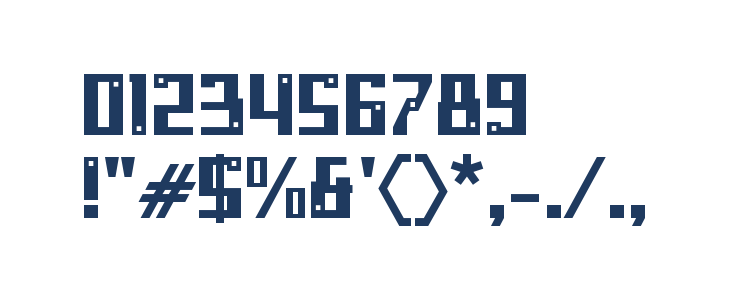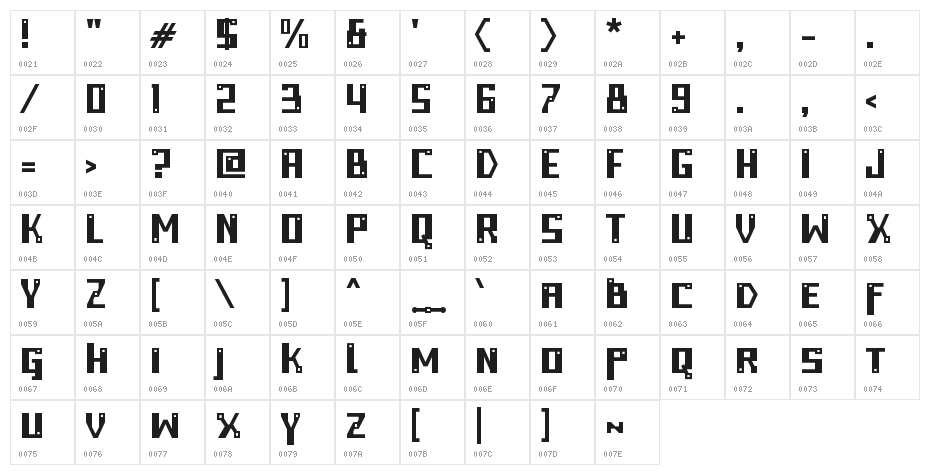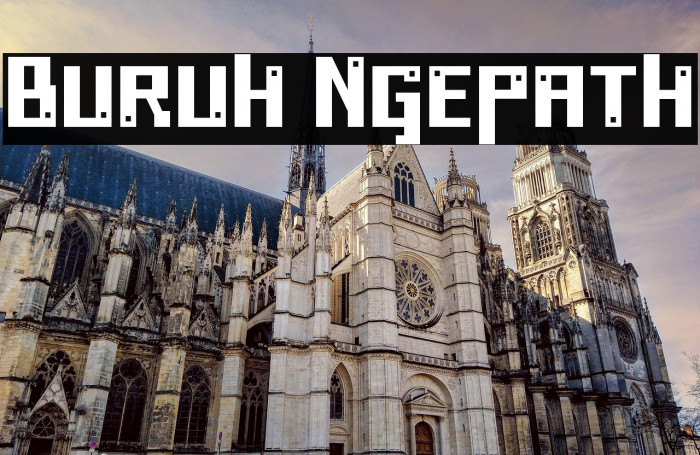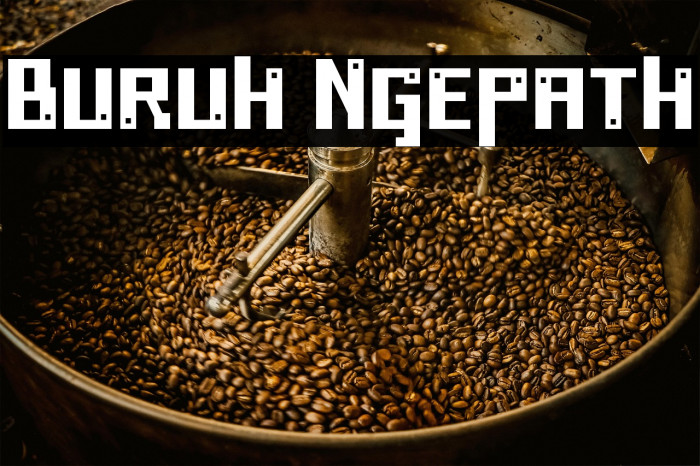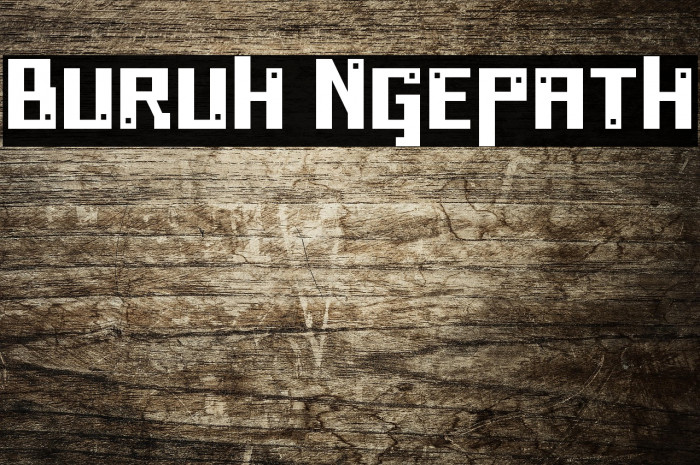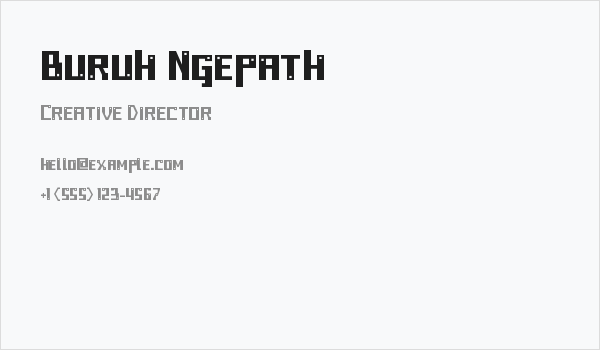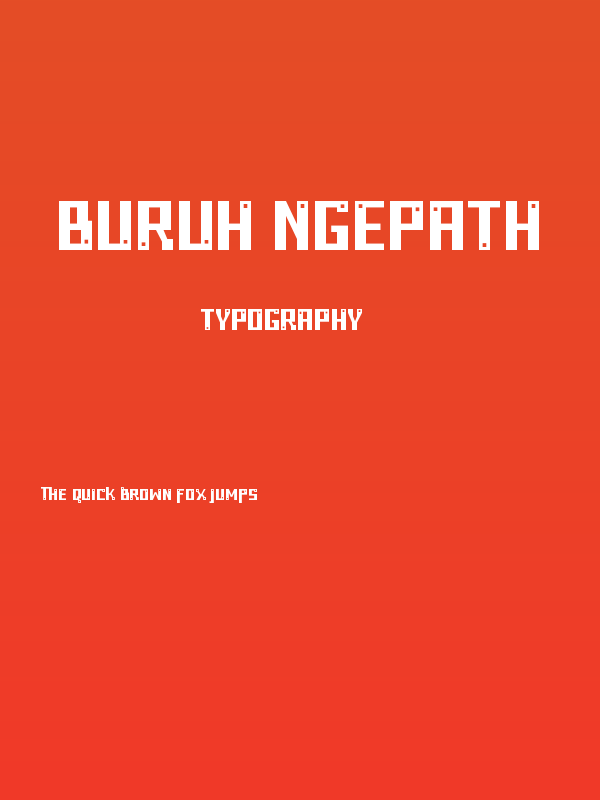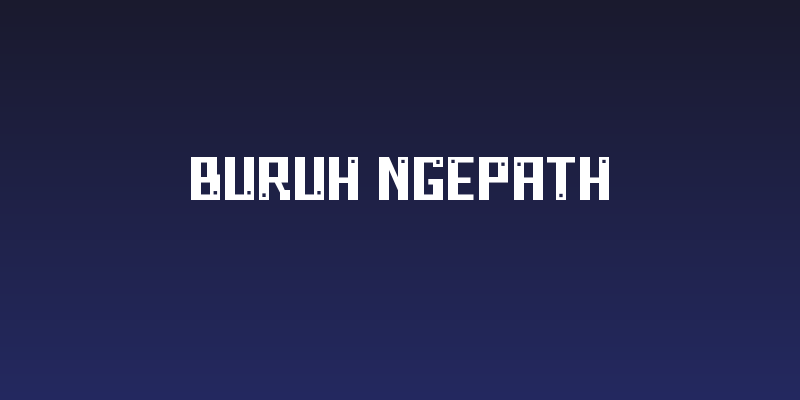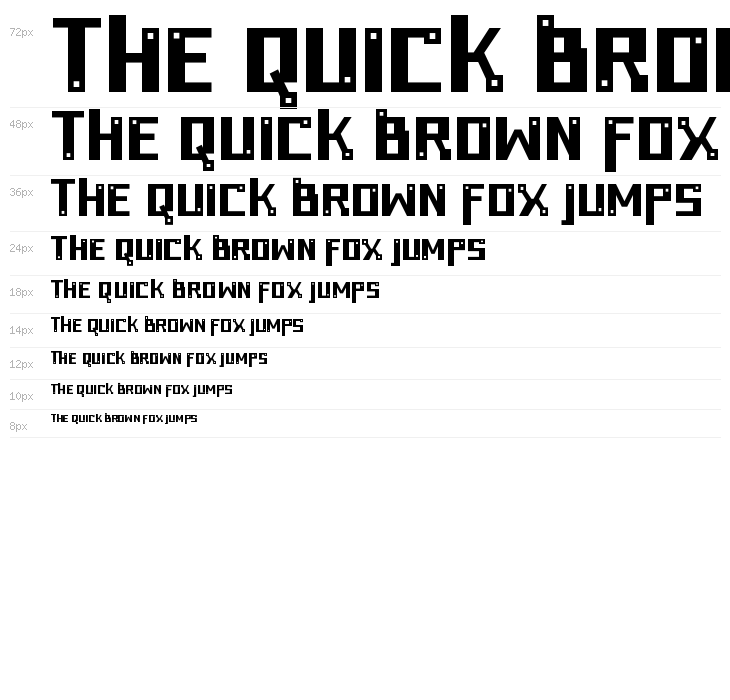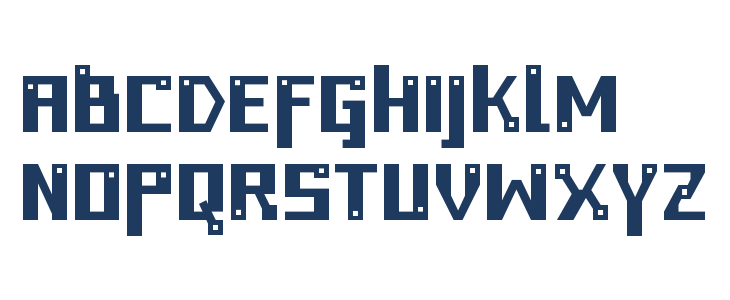
Buruh Ngepath Font
Buruh Ngepath Description
This font features a bold, geometric design with a distinct industrial feel. Each character is constructed with sharp angles and straight lines, giving it a mechanical and futuristic appearance. The use of small cut-out circles within the letters adds a unique, tech-inspired detail. The font maintains a consistent weight throughout, emphasizing its boldness and making it highly legible. Its structured form and uniformity make it suitable for projects that require a modern and edgy aesthetic.
| Proposed Projects | Ideal for technology branding, video game titles, posters, and any project needing a modern, industrial look. |